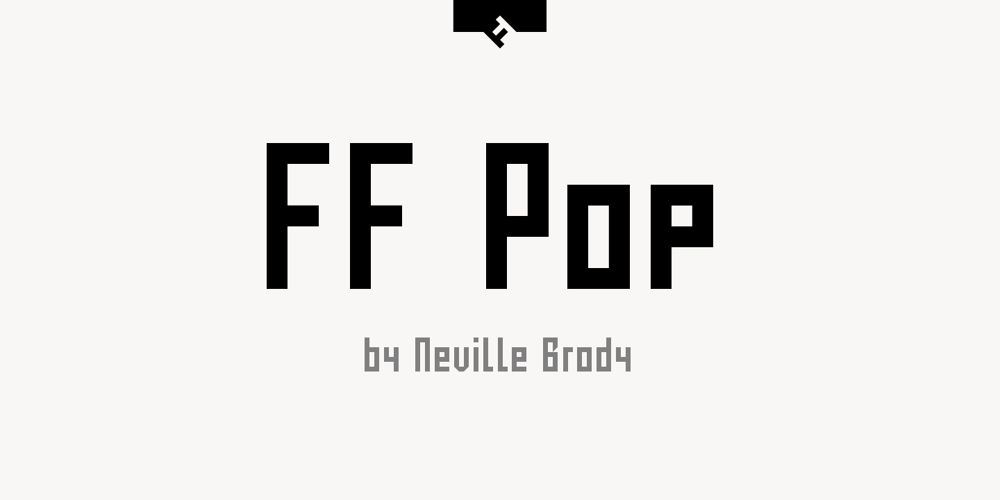
FF Pop Font Family was designed by Neville Brody and published by FontFont. FF Pop contains 2 styles and family package options. British type designer Neville Brody created this display FontFont in 1992. The family contains 2 weights is ideally suited for logo, branding and creative industries and poster and billboards. FF Pop provides advanced typographical support with features such as ligatures, case-sensitive forms, and stylistic alternates. It comes with proportional lining figures.